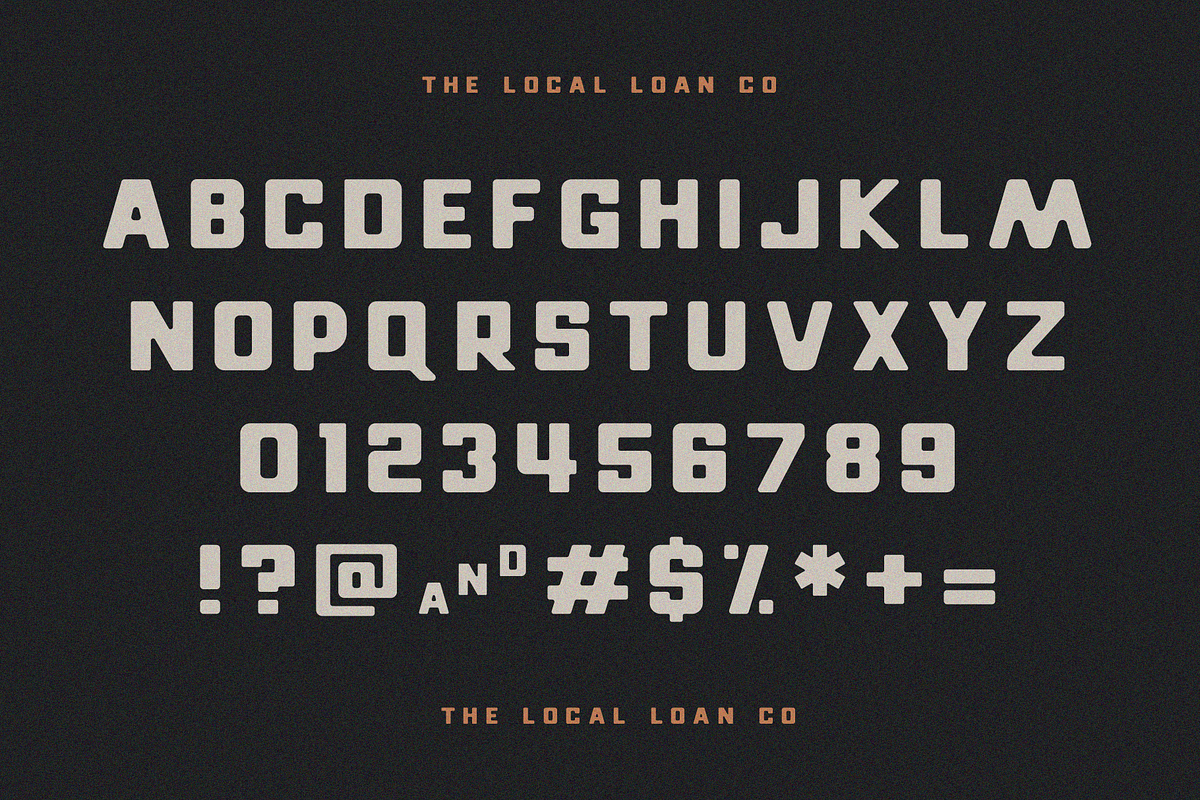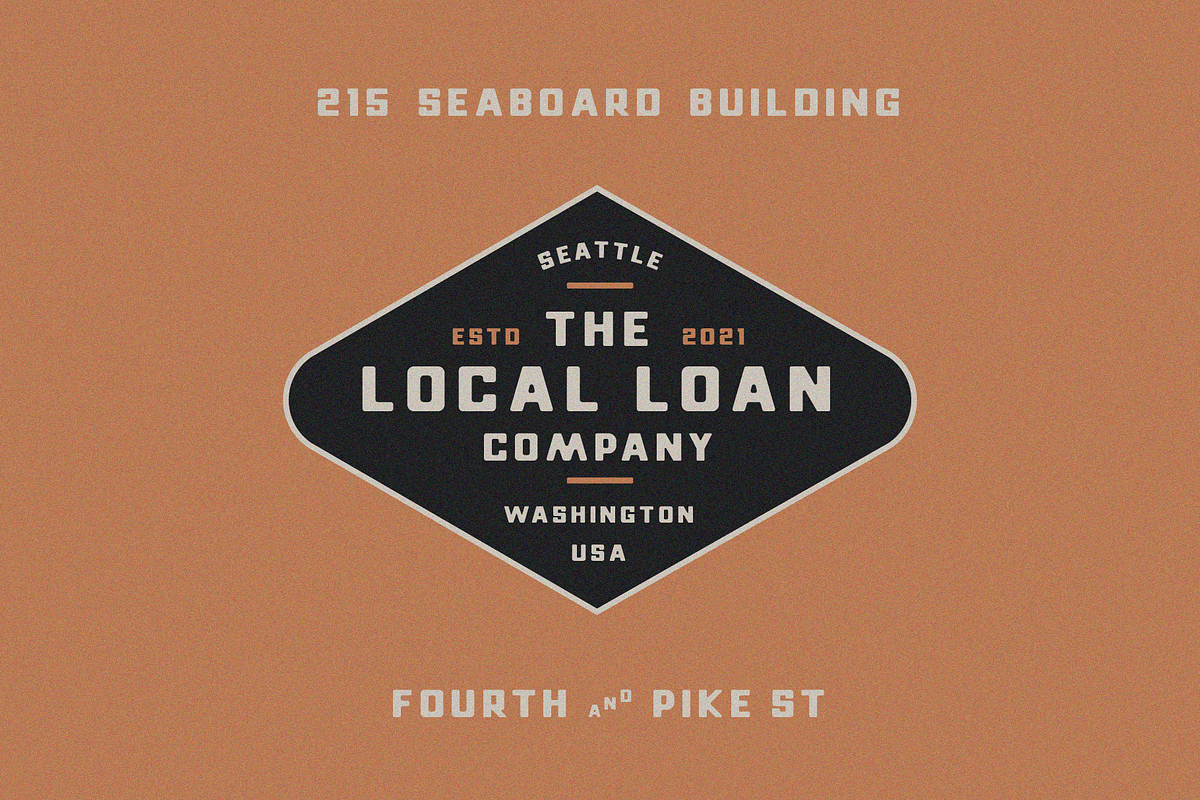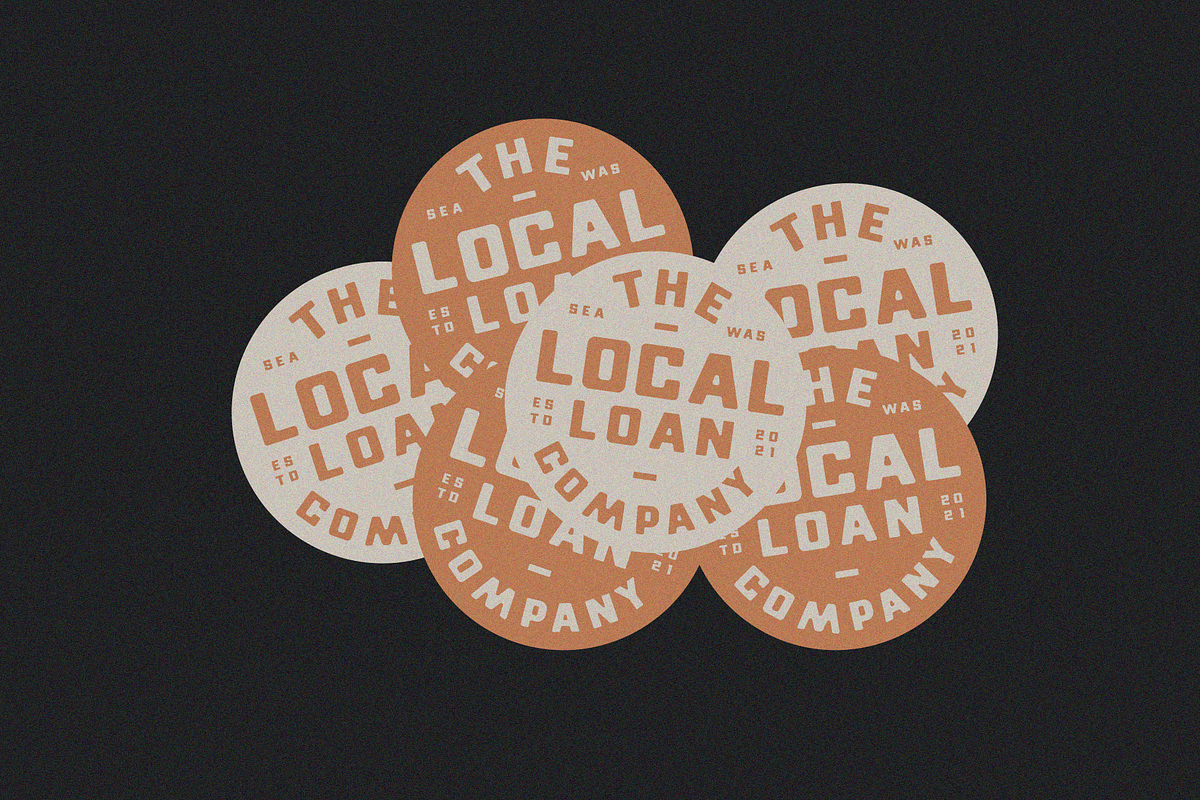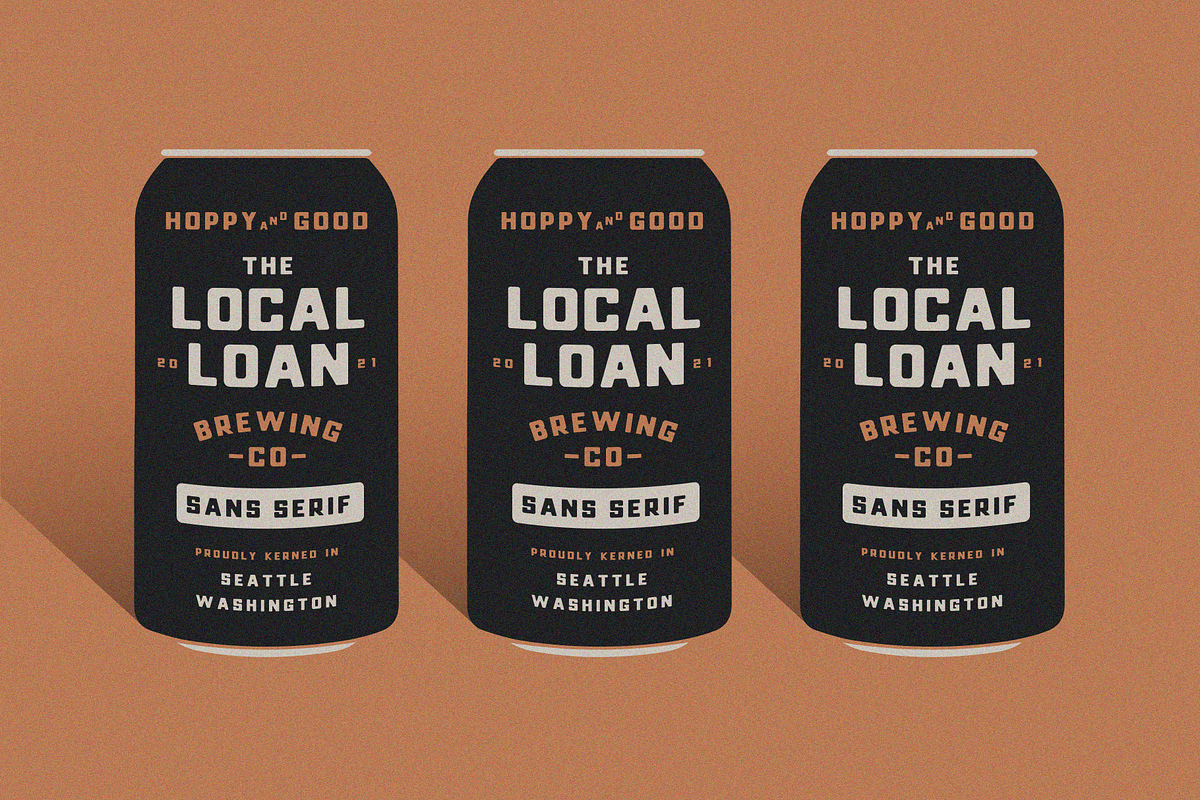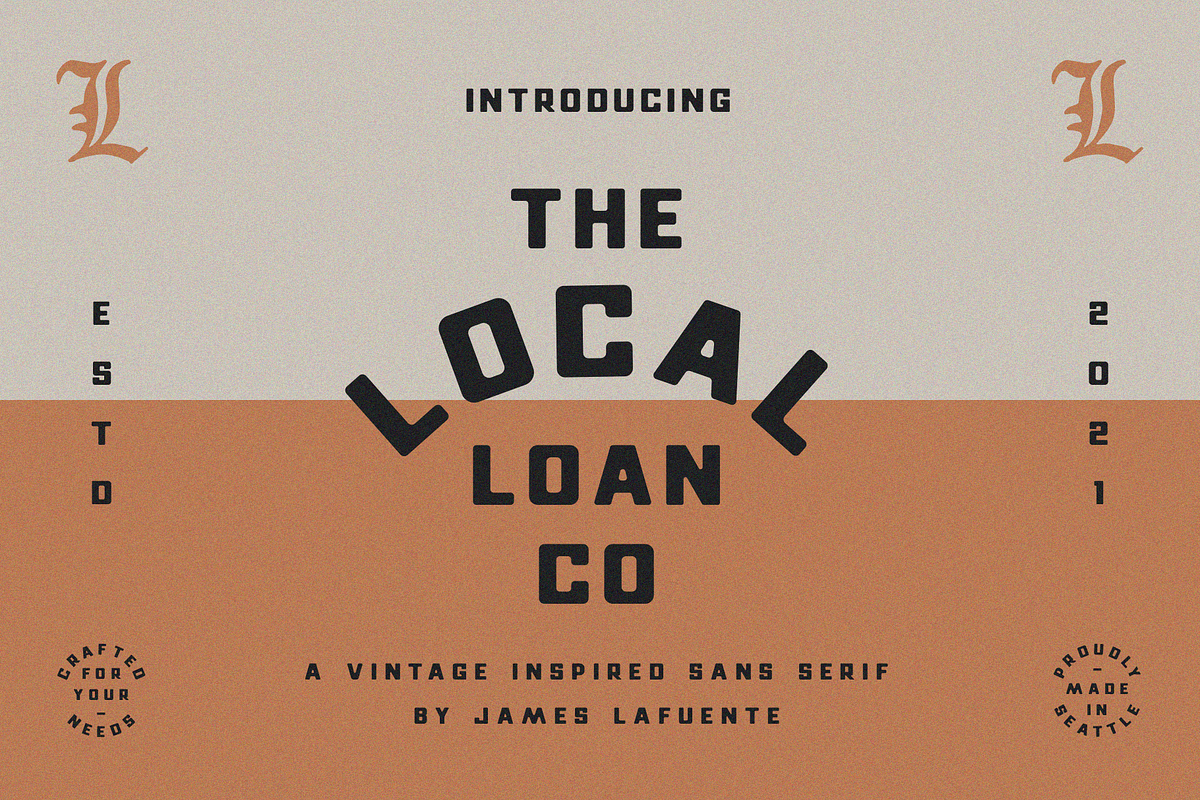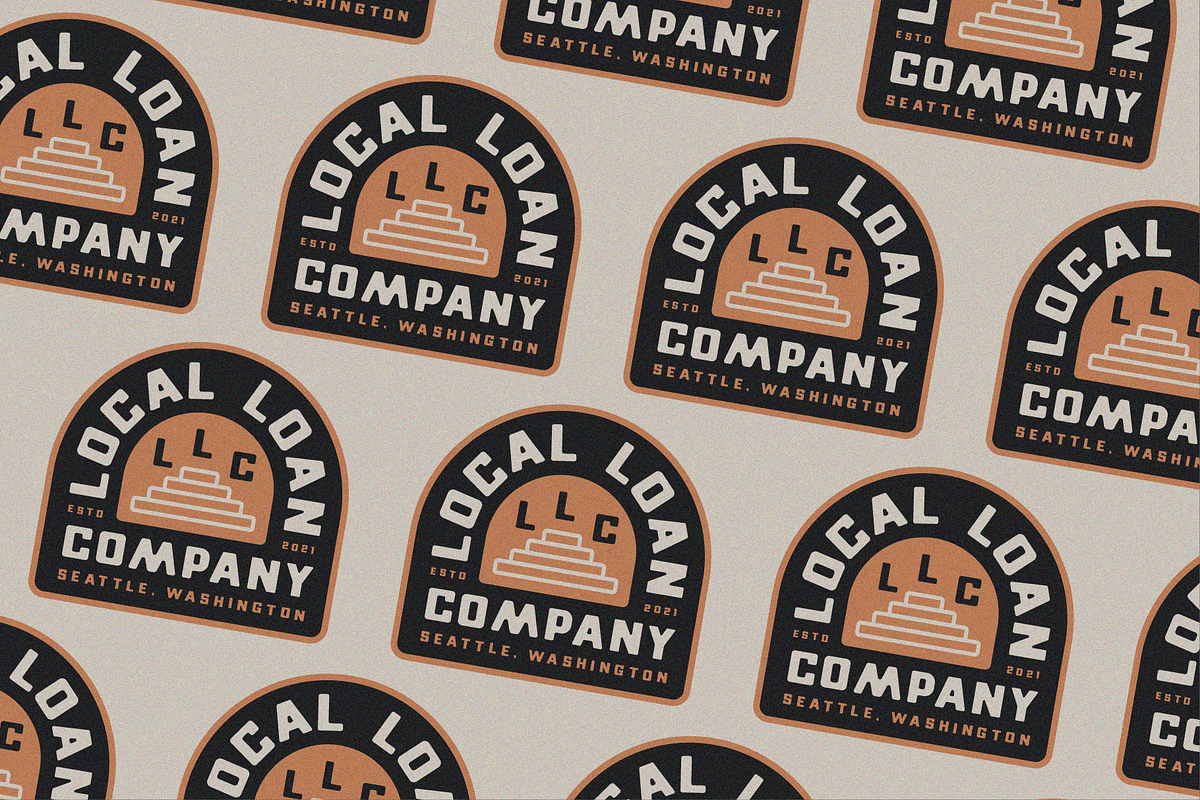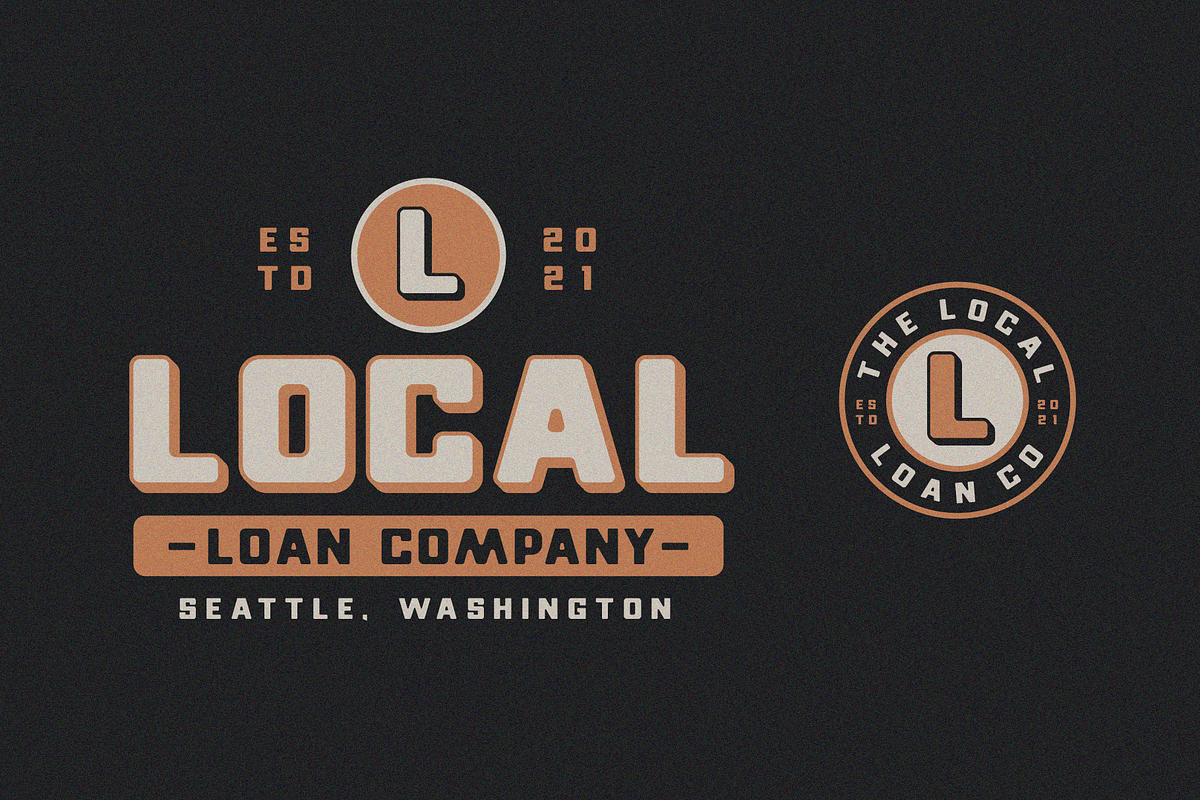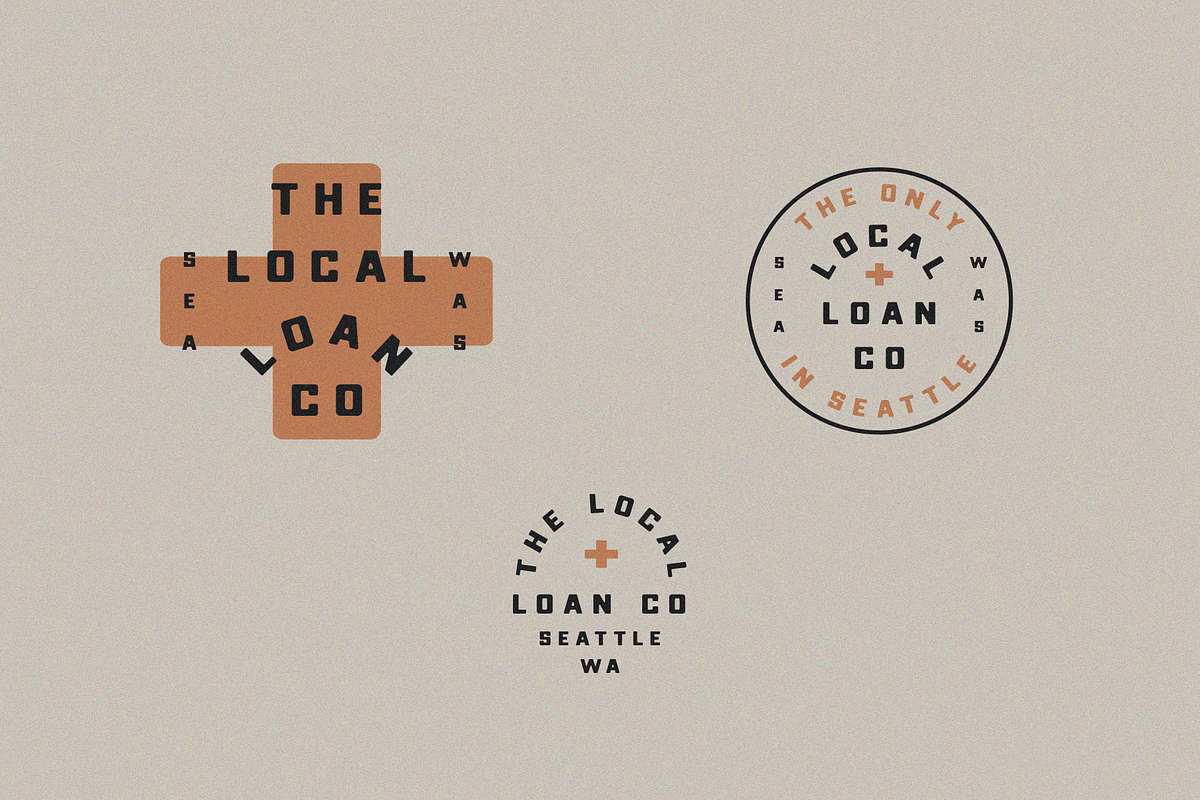
Local Loan Co - A Vintage Sans Serif
Local Loan Co is a is vintage font inspired from an old matchbook. It's a sans serif font with tons of character. It works seamlessly across different applications to give an authentic vintage aesthetic as seen in all the display images. Use it for vintage branding, packaging, t-shirts, logos, posters and more!